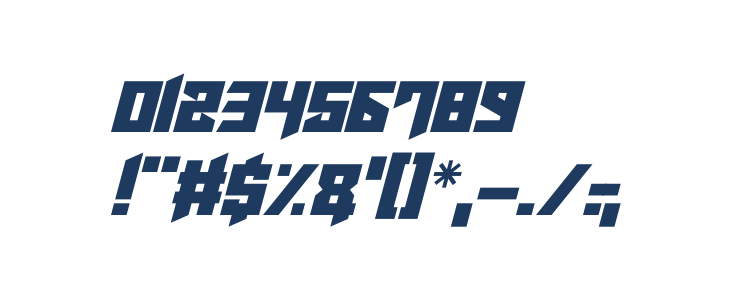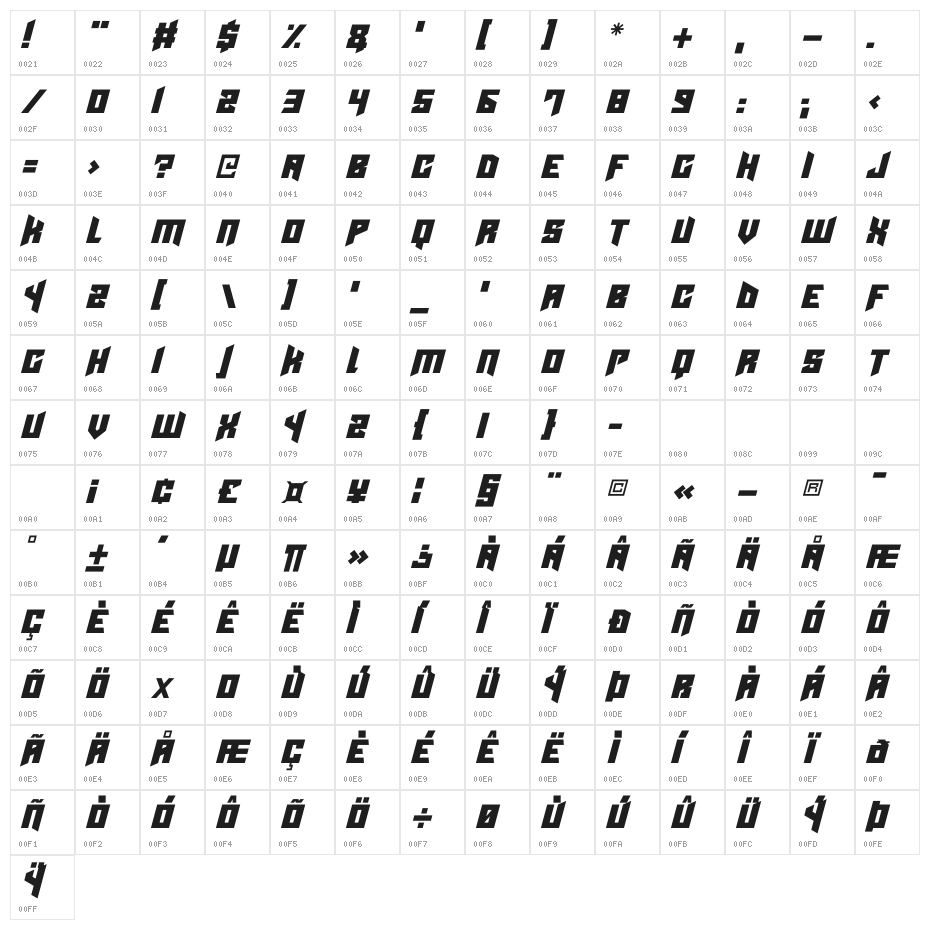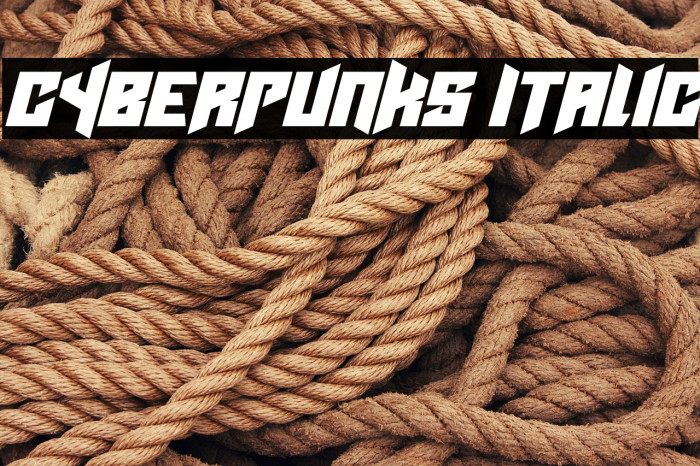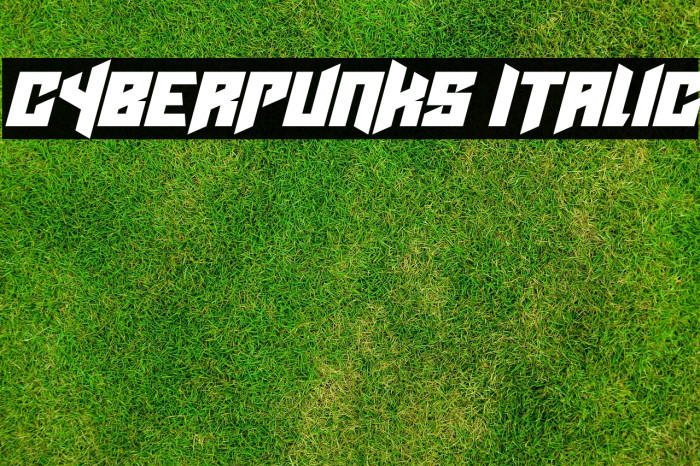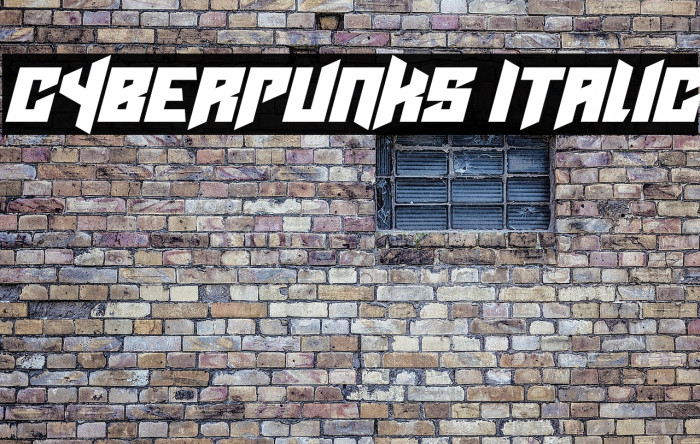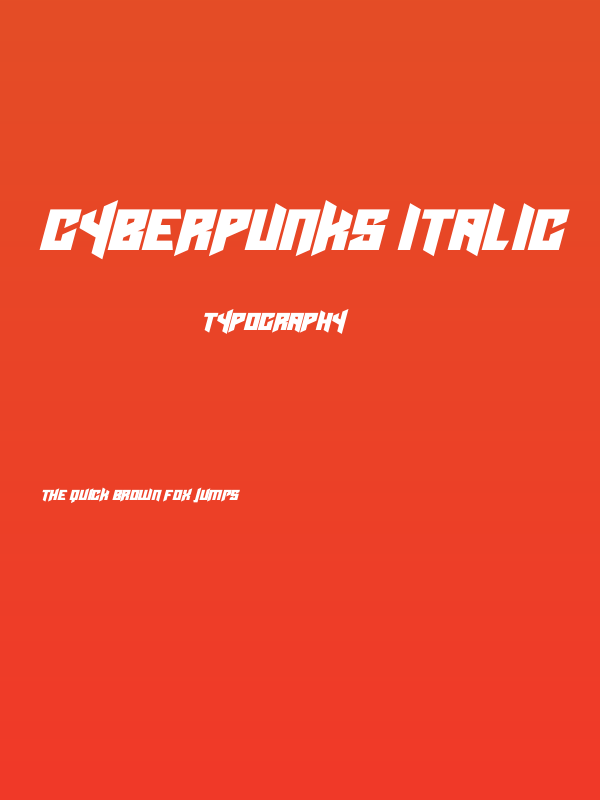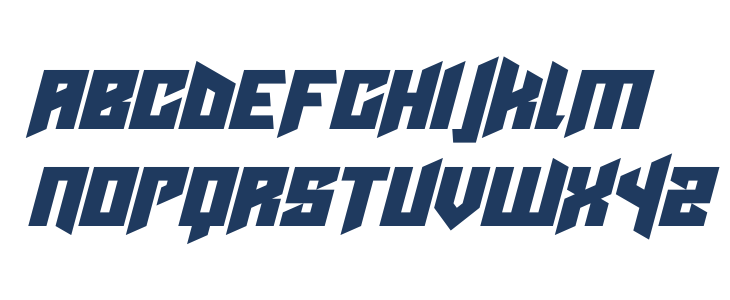
Cyberpunks Italic Font
Cyberpunks Italic Description
This font features a bold, angular design with a futuristic and edgy aesthetic. The characters are sharply cut with a distinct slant, giving them a dynamic and aggressive appearance. The uppercase and lowercase letters maintain a consistent style, with exaggerated angles and a sense of movement. The numbers and special characters follow the same design principles, ensuring uniformity across the font. The overall look is reminiscent of cyberpunk themes, making it ideal for projects that require a modern and tech-inspired feel.
| Overall Style | Modern, Futuristic |
| Proposed Projects | Ideal for video game titles, sci-fi movie posters, tech branding, and digital art projects. |